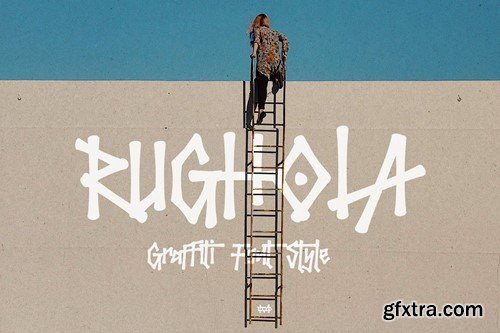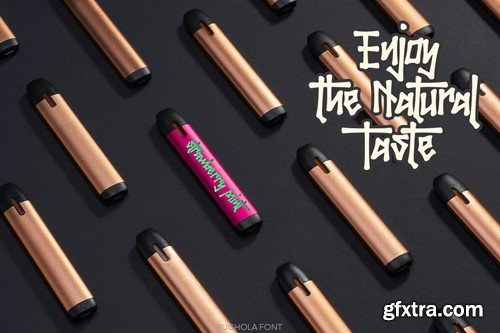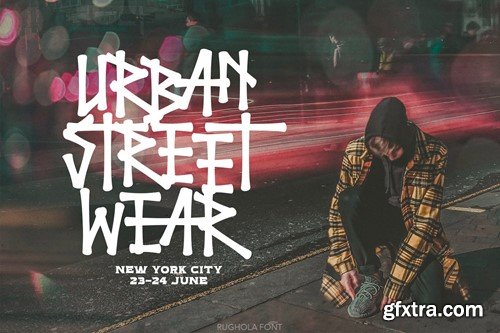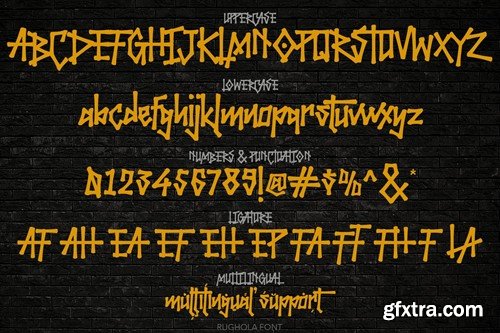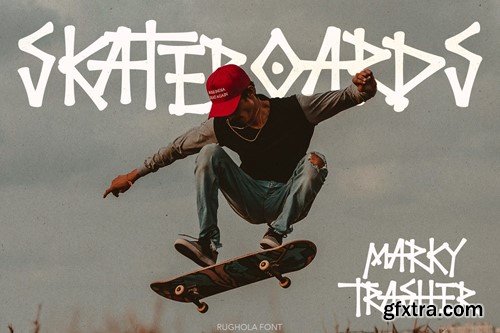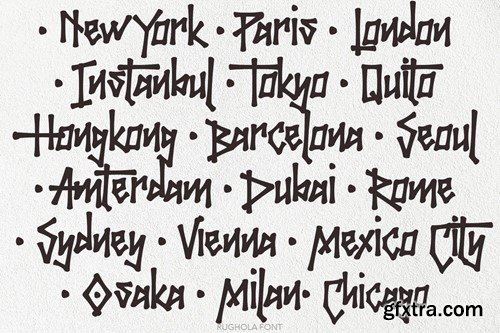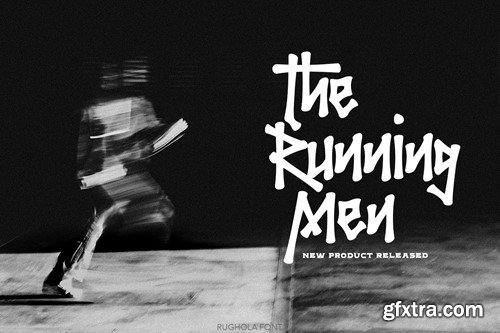
Rughola Graffiti Font
Rughola is a graffiti font inspired from 90s street hip hop style. Clear and unique you can explore and combine creating rhythm for comfortable reading and this font perfect for any projects design. Feature Feel free to drop us a message any time and follow my shop for upcoming updates Hope you enjoy it.